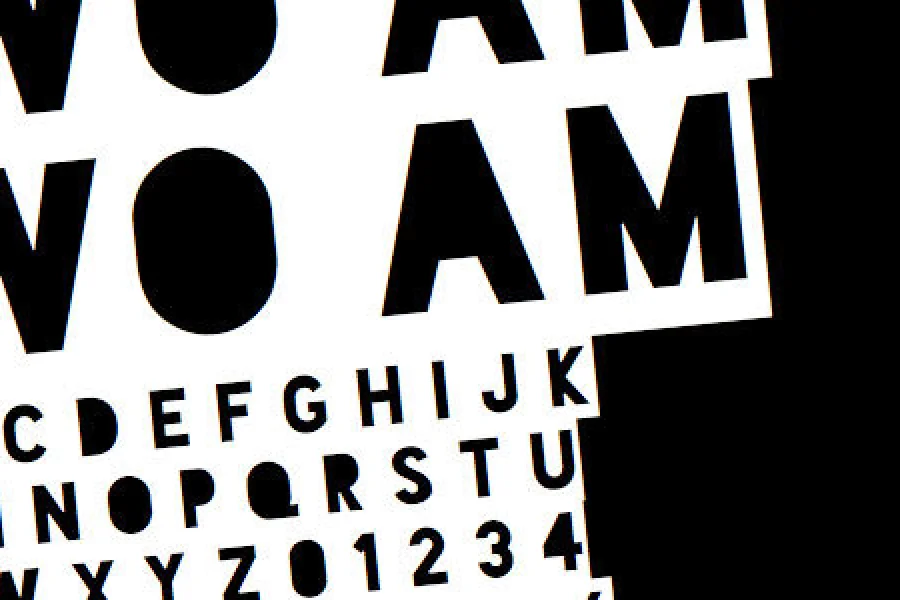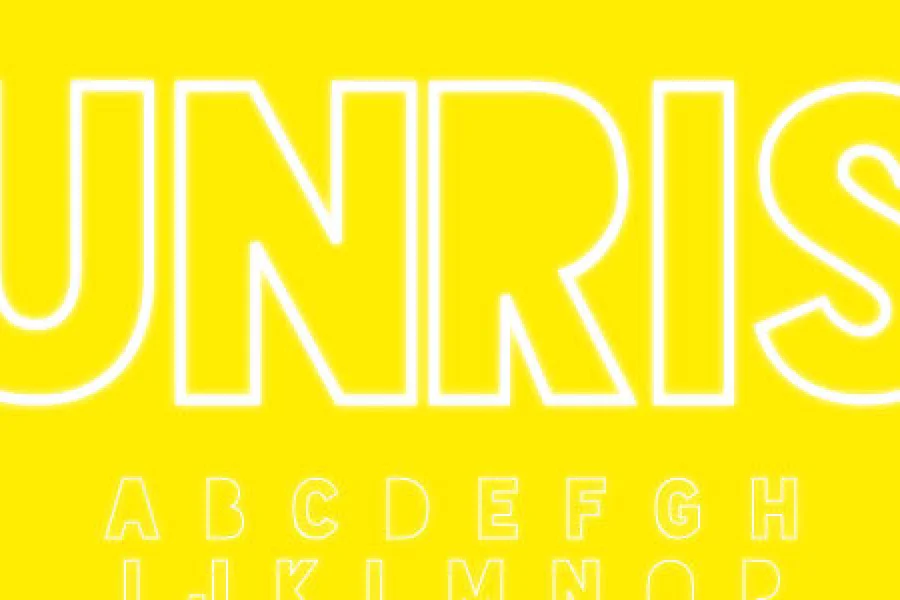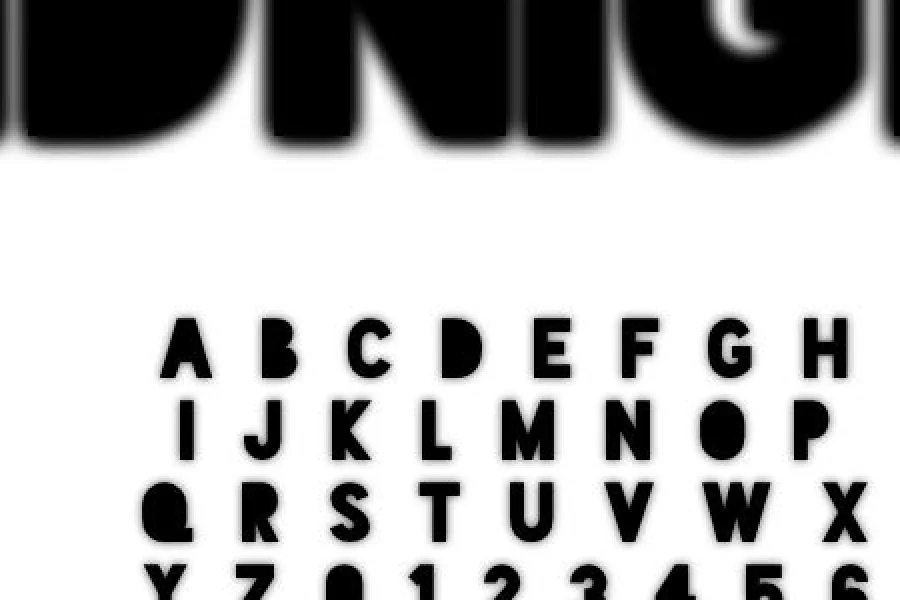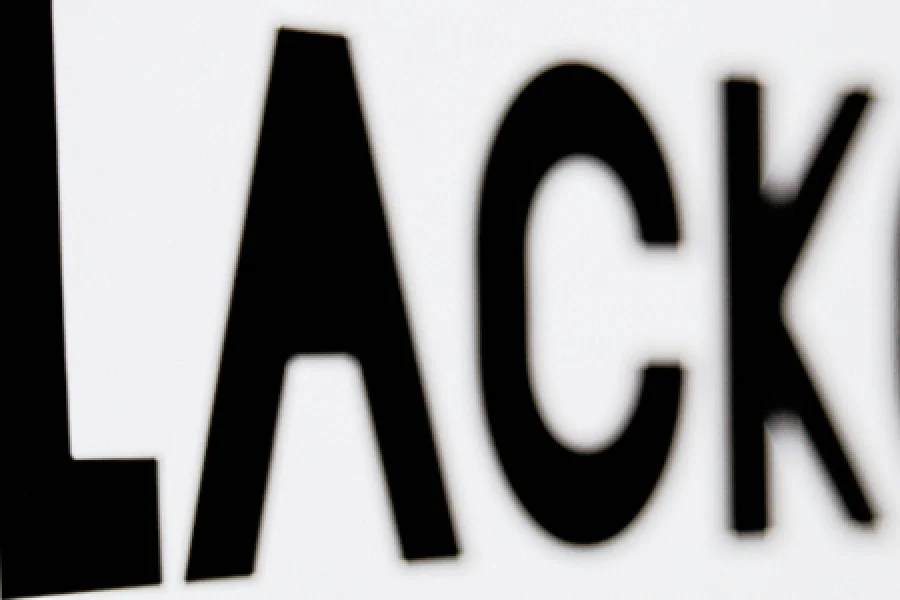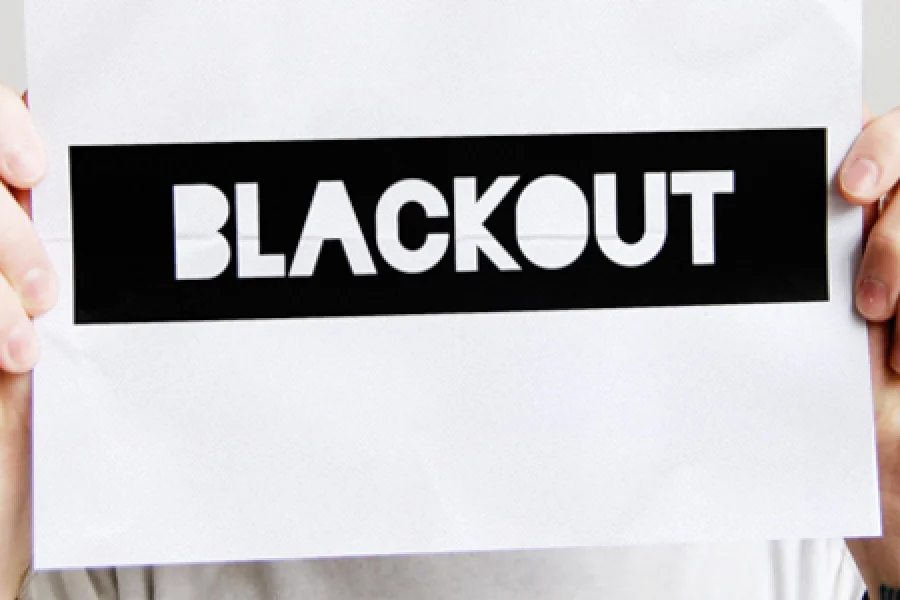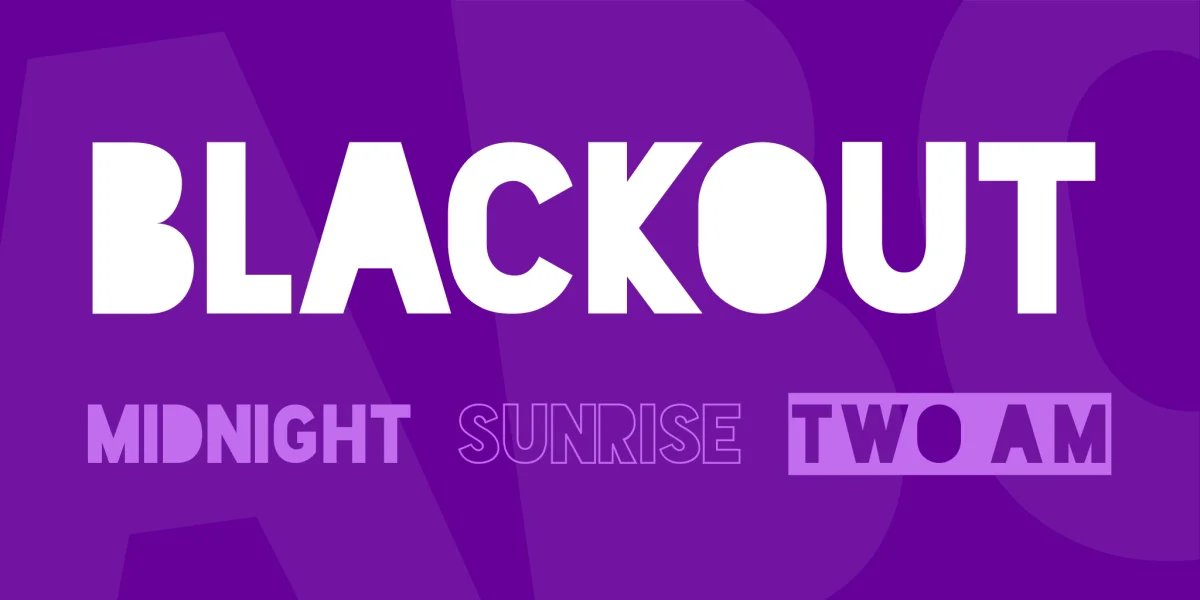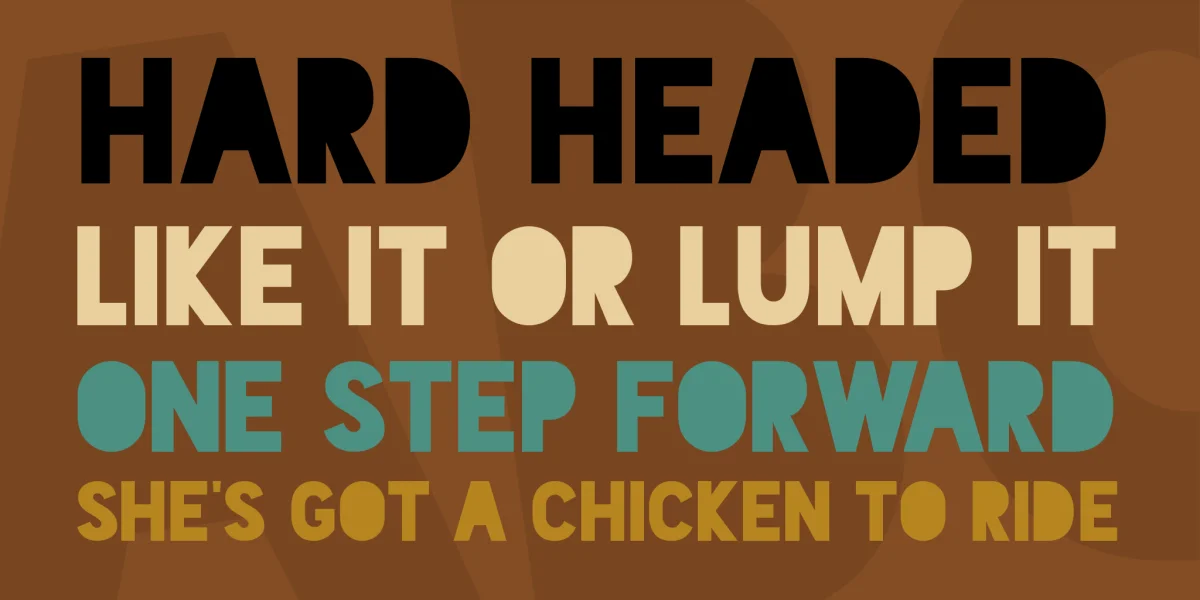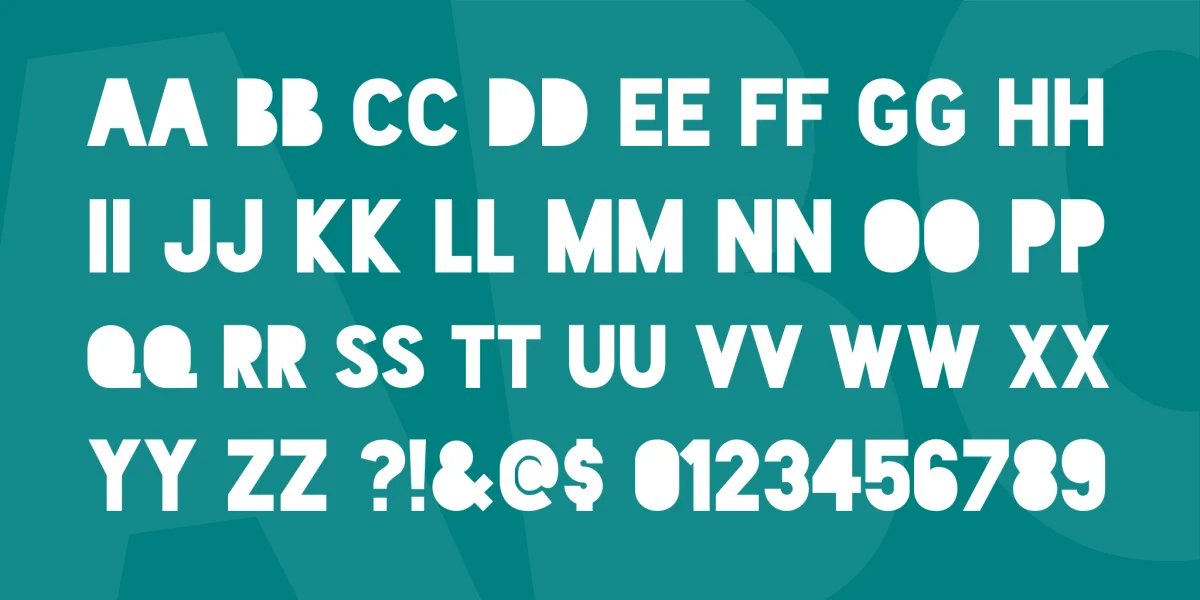
Eats holes for breakfast lunch and dinner. Inspired by filling in sans-serif newspaper headlines. Continually updated with coffee and music. Makes your work louder than the next person’s.
Comes in three styles: Midnight (solid), 2AM (reversed), & Sunrise (stroked).
I made this font in 2008 with Illustrator and Font Lab Studio, both of which are wonderful. This is not based on any other font and was created from scratch, although I'm sure there are similarities to other fonts out there (purely coincidental).